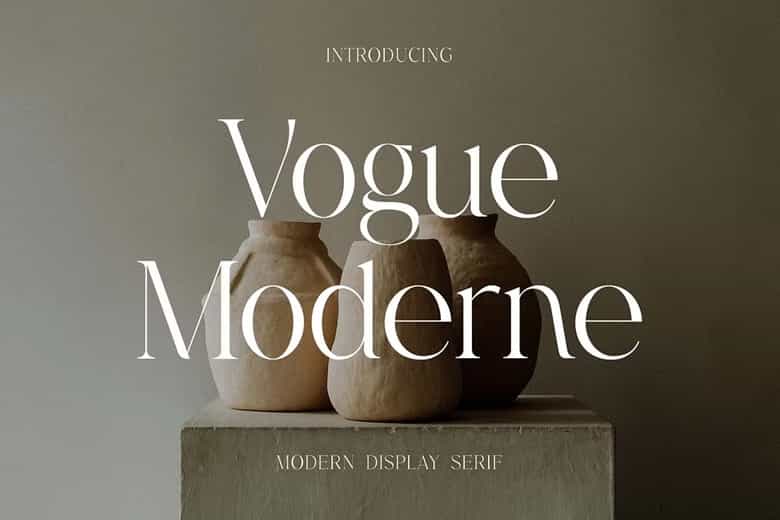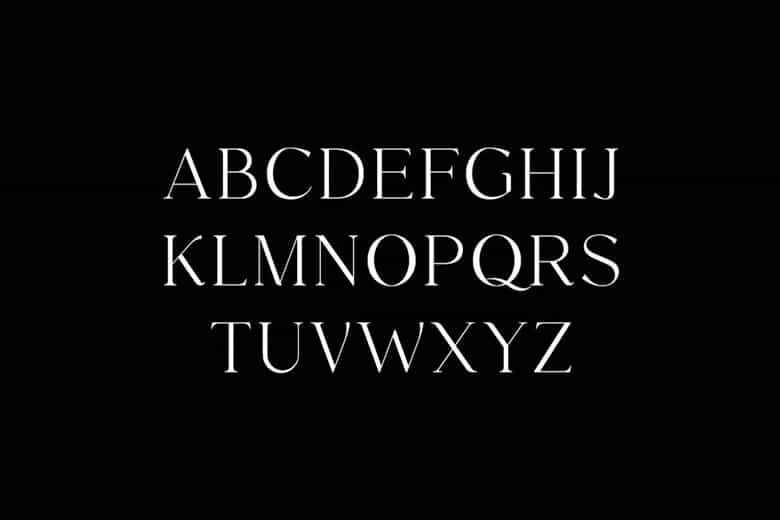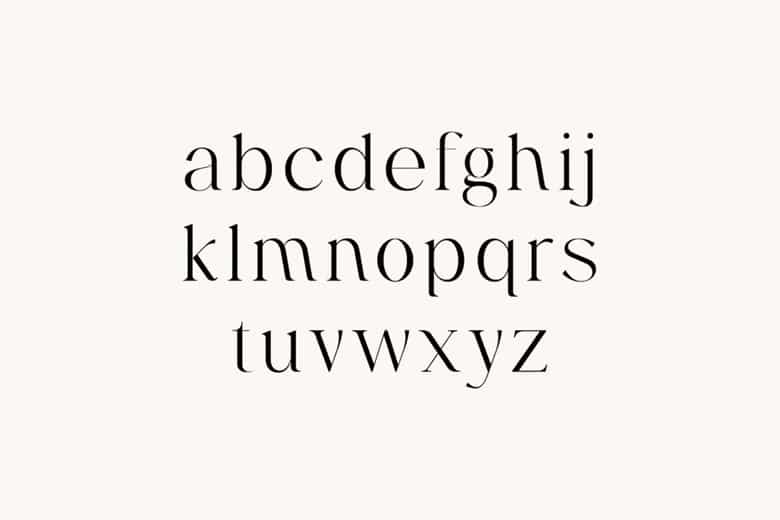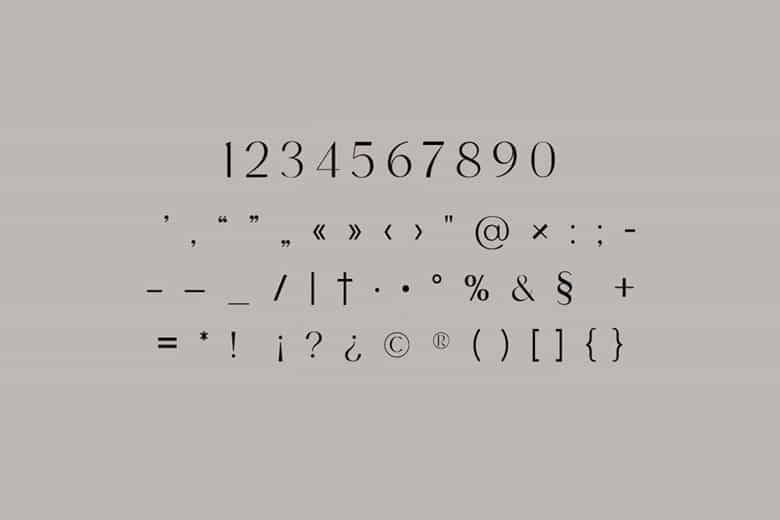
Vogue Moderne is a beautiful classy, elegant, and stylish display serif font. This font is appropriate to be used for many forms of creative projects like signature style, letterhead, logo design, nuptial, quote art, magazine or book layout, webpage header, and many others. Likewise, branding or editorial design concerned with fashion shows typical male and female features.